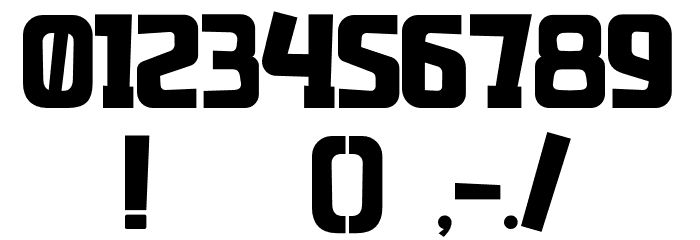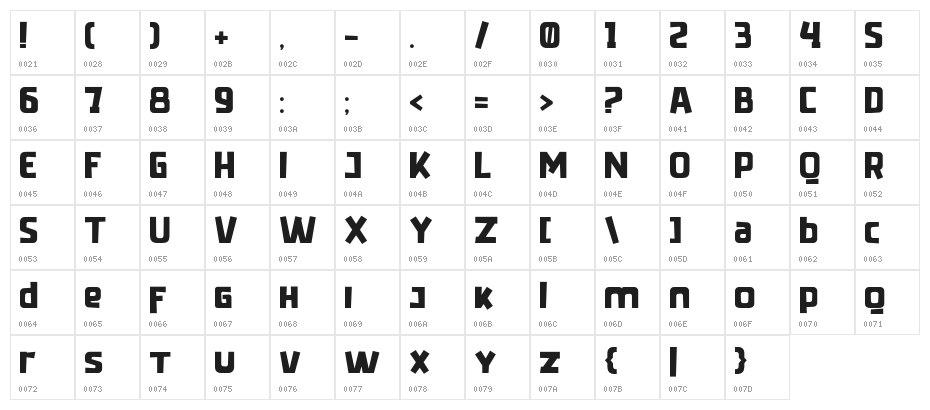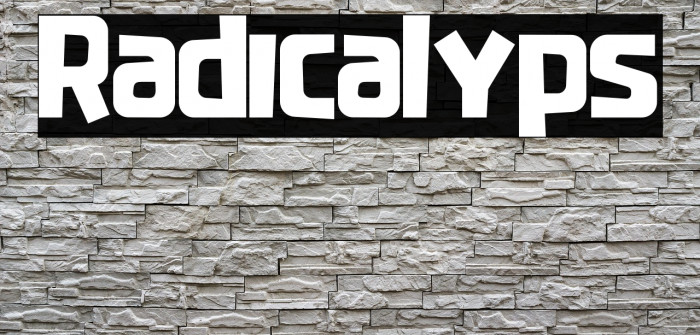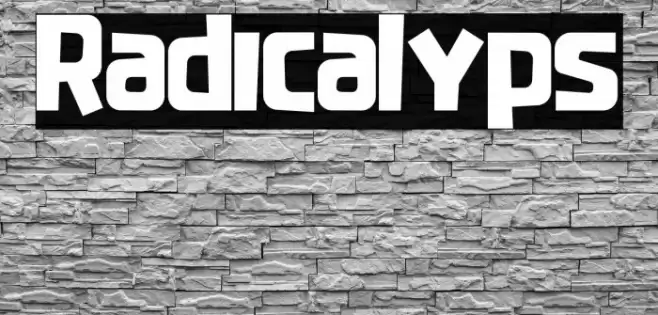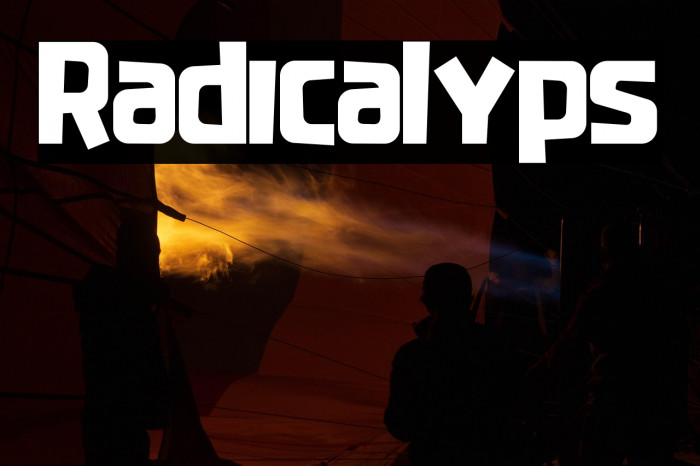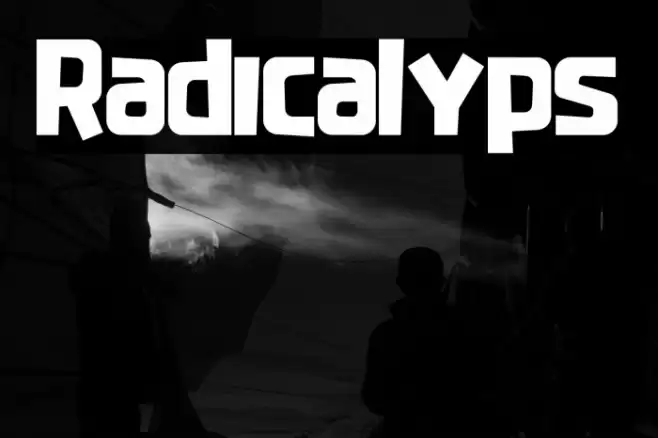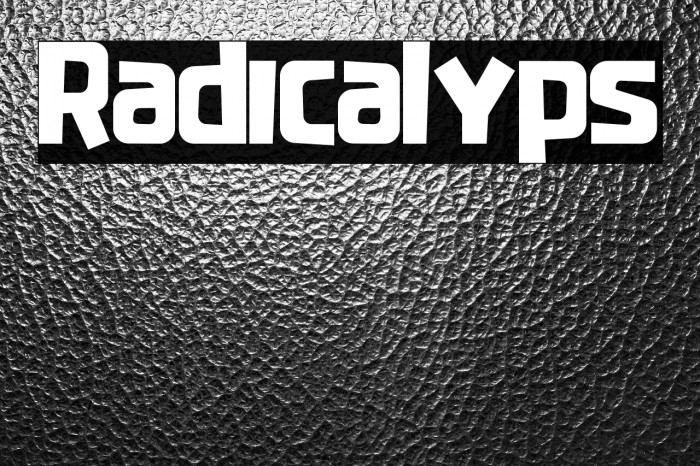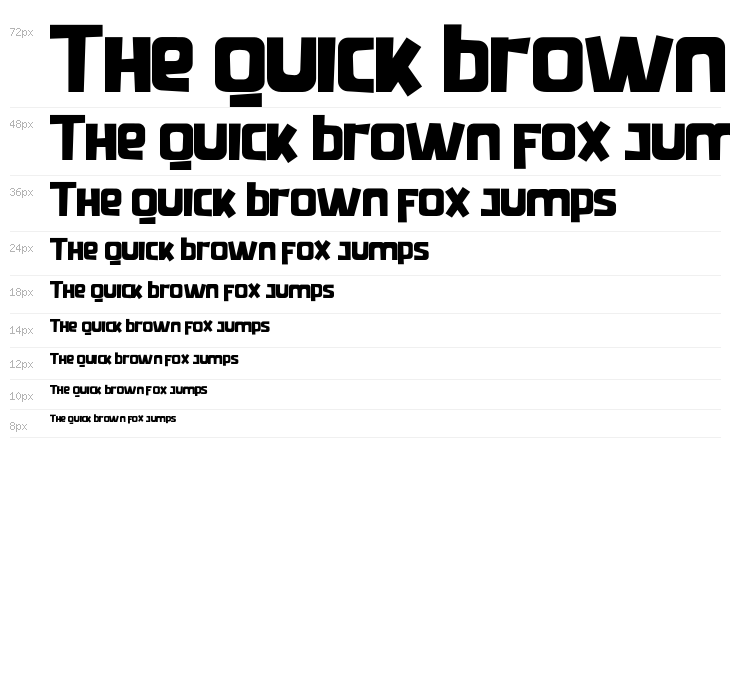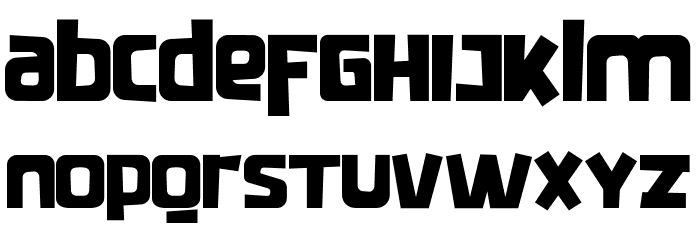
Radicalyps Font
Radicalyps Description
This font features a bold and striking design with a modern and edgy aesthetic. The characters are blocky and geometric, with sharp angles and a strong presence. The uppercase and lowercase letters maintain a consistent style, with unique cuts and shapes that give the font a distinctive look. The numbers and special characters follow the same bold and angular design, making them stand out. This font is perfect for projects that require a bold statement, such as posters, headlines, and branding materials.
| Proposed Projects | Ideal for posters, headlines, branding, and any project needing a bold statement. |